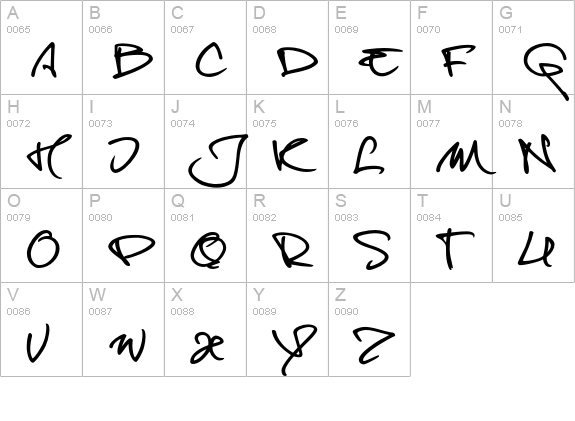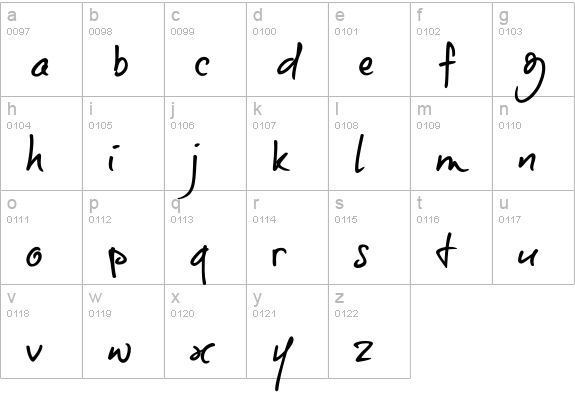
onetrickTony Font Details
Introducing onetrickTony, a cutting-edge font that combines elegance, creativity, and versatility into one harmonious design. This unique typeface was meticulously crafted to captivate and inspire, making it the perfect choice for a wide range of creative projects. With its sleek lines and modern appeal, onetrickTony stands out among the crowd, effortlessly commanding attention and leaving a lasting impression. Its clean and sophisticated letterforms exude confidence and style, making it ideal for branding, logo design, editorial layouts, and more. But what sets onetrickTony apart from other fonts in its class is its incredible affordability. This remarkable typeface is available for free download exclusively at FontsMarket.com. Now, you can elevate your creative endeavors without breaking the bank. Whether you're a seasoned designer looking to expand your font library or a beginner experimenting with typography, onetrickTony will undoubtedly become your go-to choice. Its extensive character set includes uppercase and lowercase letters, numbers, punctuation marks, and special symbols, ensuring that your creative possibilities are endless. But don't just take our word for it - experience the magic of onetrickTony for yourself. Download this incredible font for free at FontsMarket.com and unlock a world of endless design possibilities. Elevate your projects, captivate your audience, and make a lasting impression with onetrickTony - the font that seamlessly blends elegance and creativity into one remarkable package.